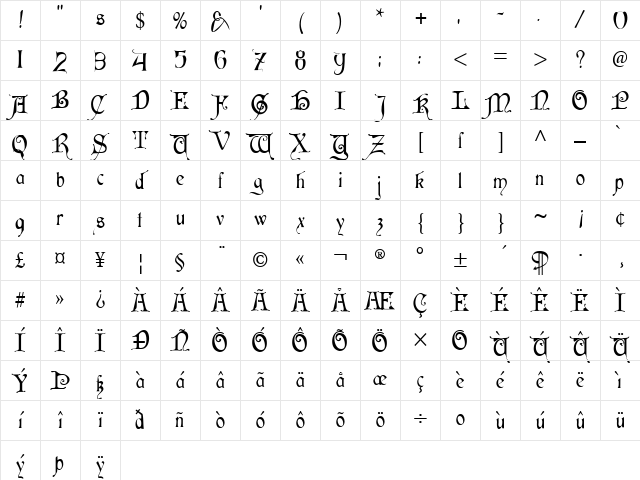
Cardinal Alternate Regular Free Font
Cardinal Alternate Regular
Design Context for Cardinal Alternate
Cardinal Alternate is a composed and adaptable typeface that performs quietly and consistently across a wide range of design contexts.